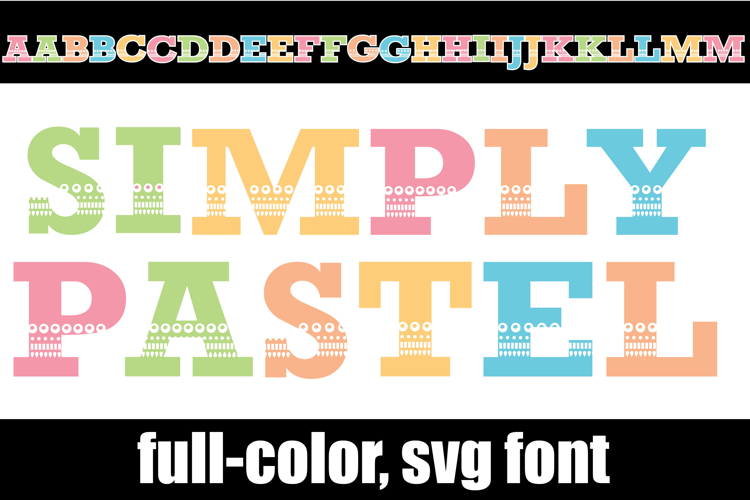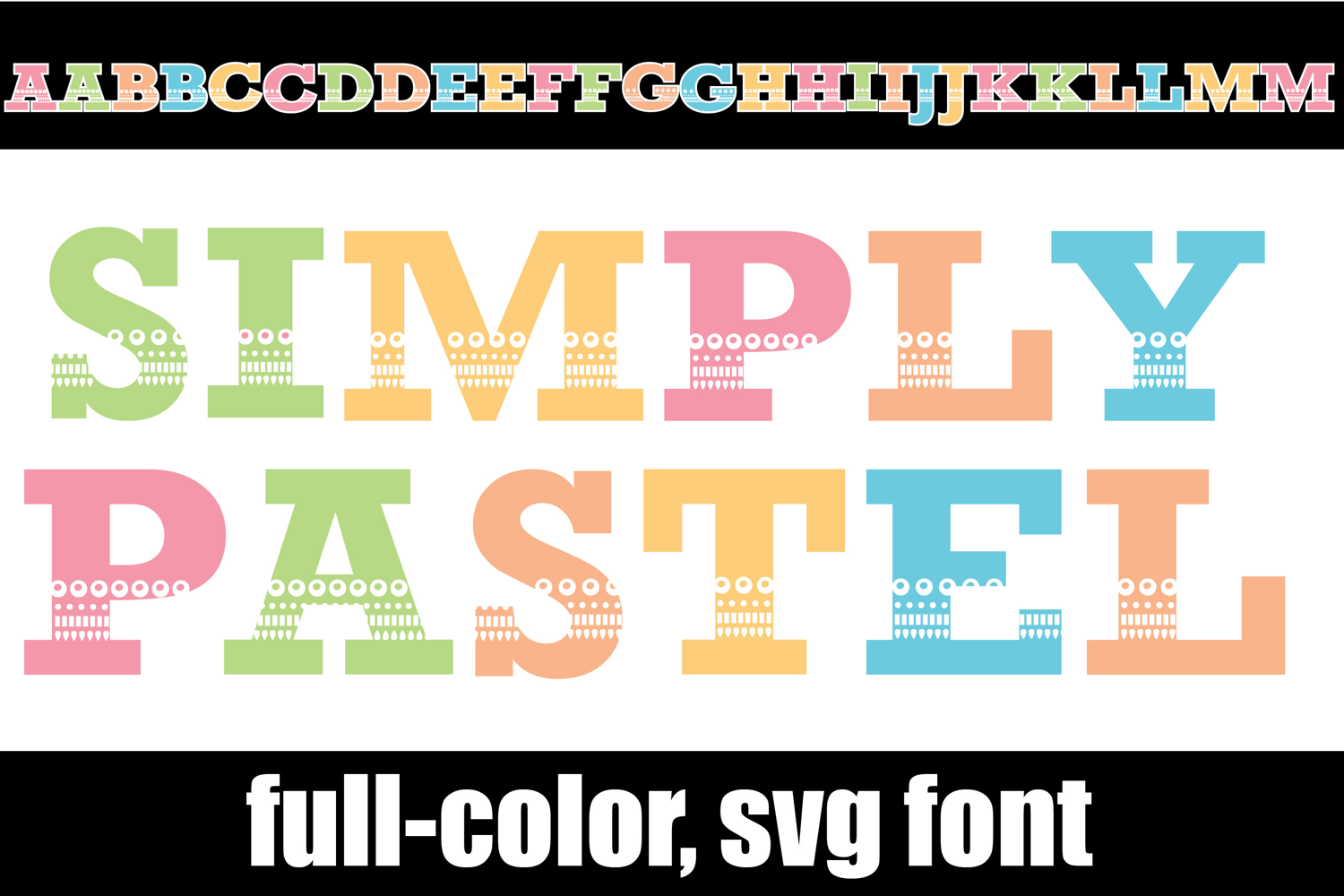
Simply Pastel Color Font
This full-color, pastel-colored font features a chunky serif and lace-like design. There is an alt case of each letter with a different color combination.